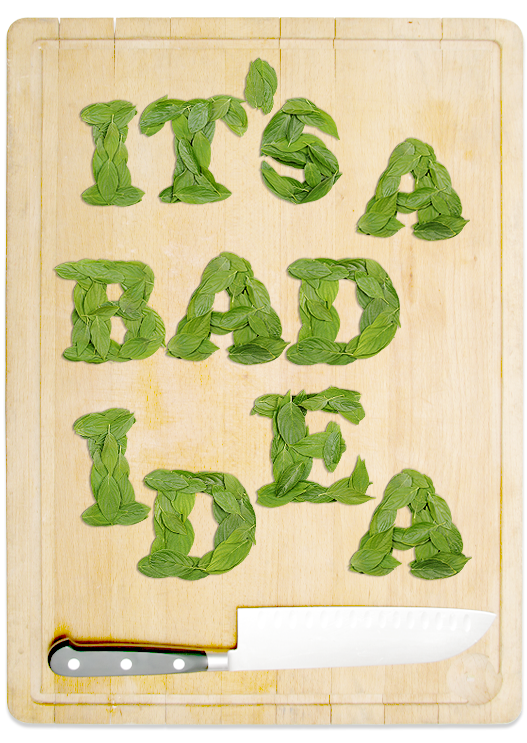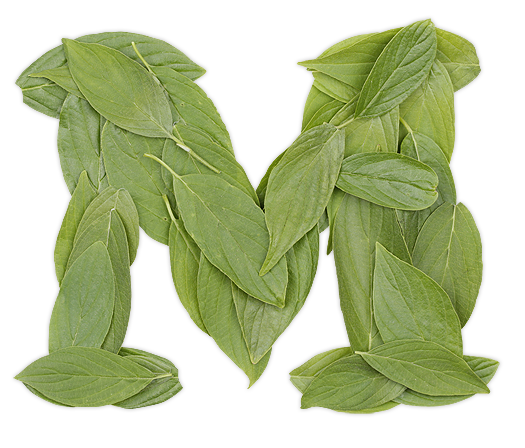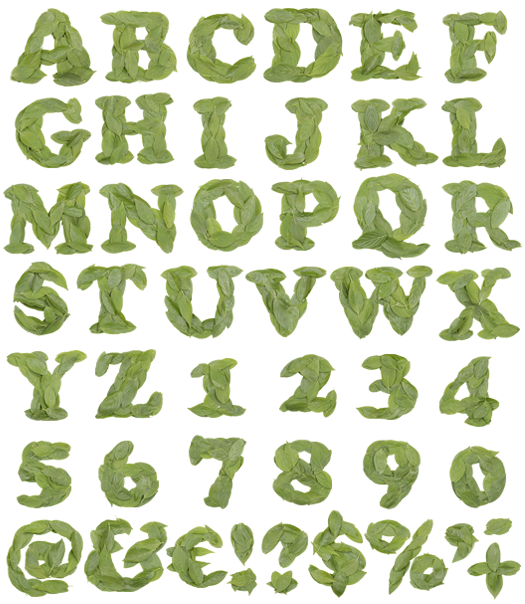
HandMadeFont is an incredible project that features a vast range of typographic designs. Entire font sets are created using a wide range of mediums and materials, resulting in typefaces and lettering that are totally original.